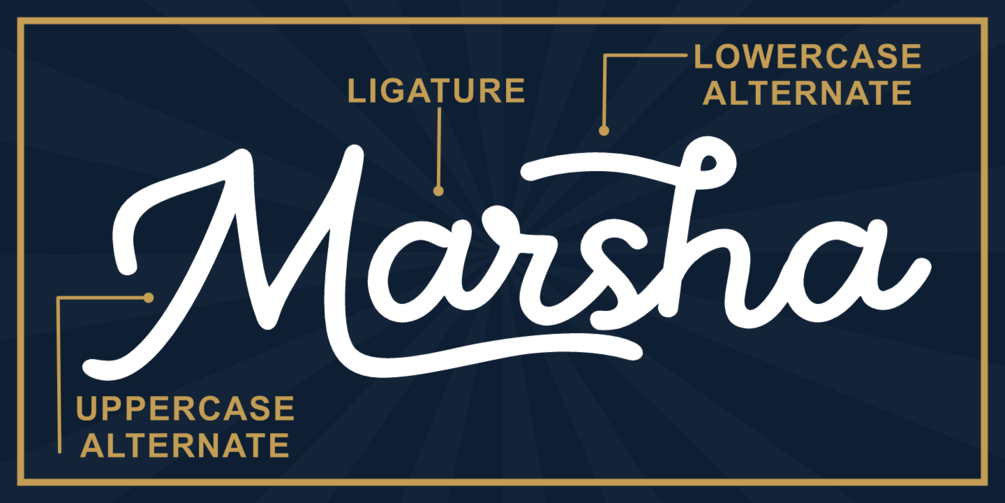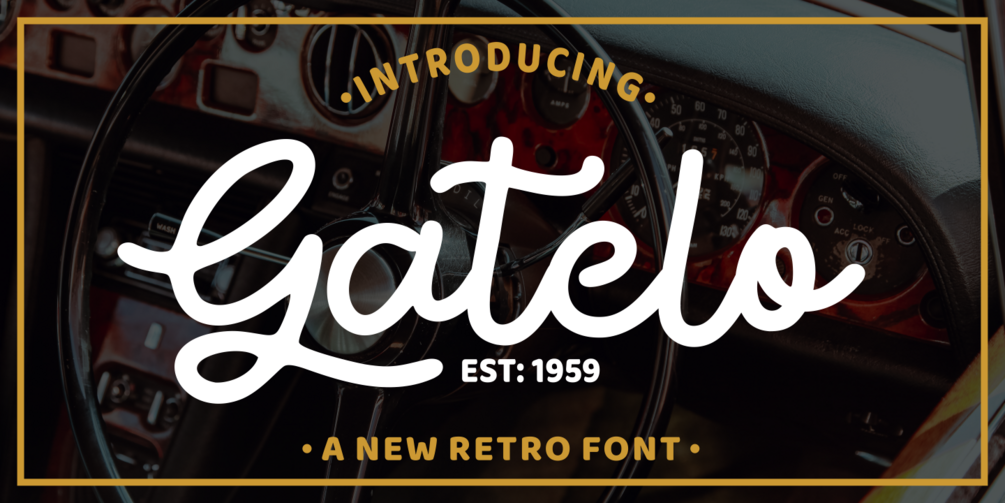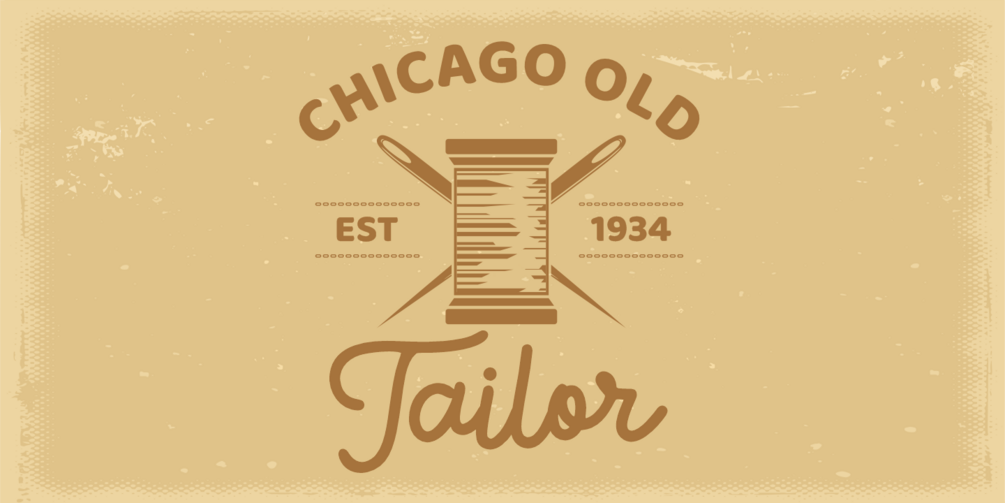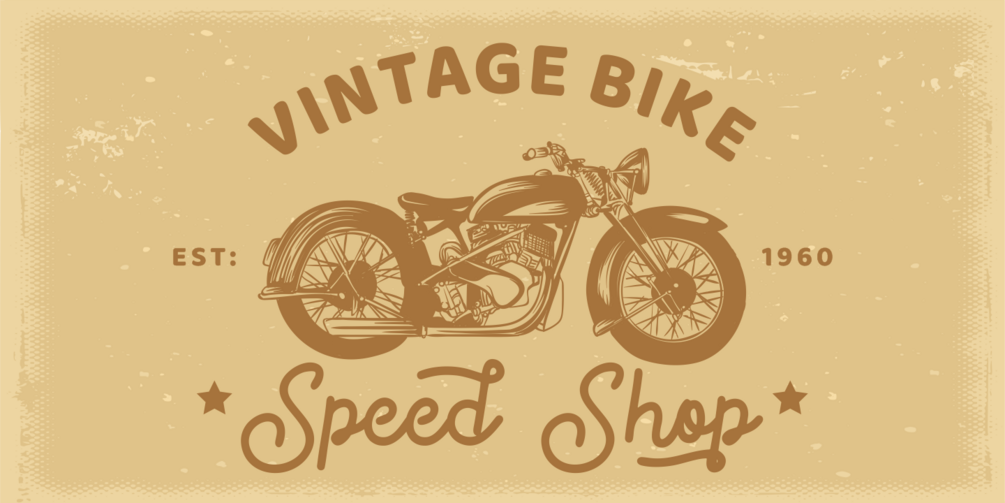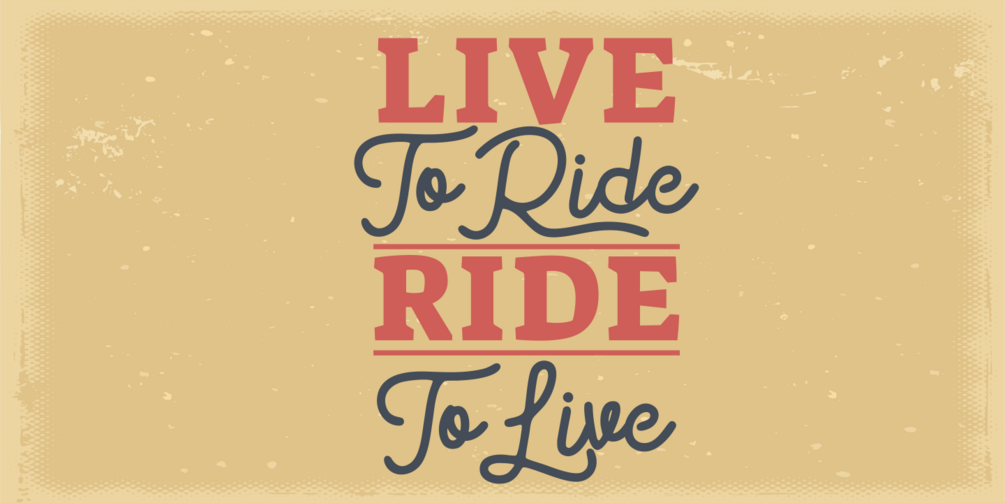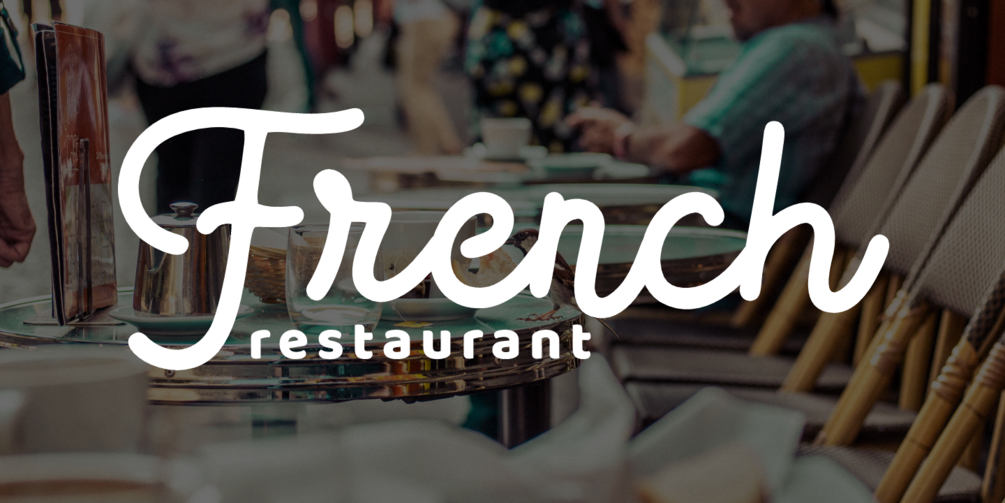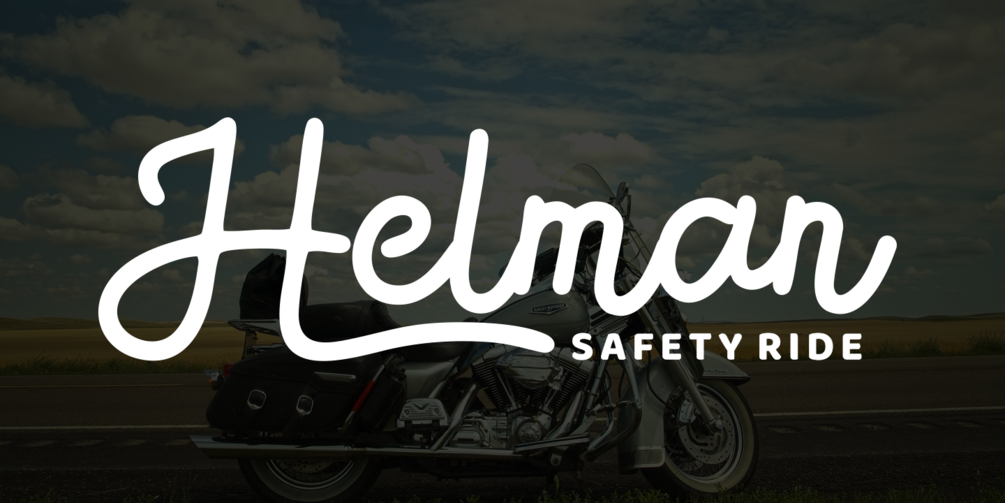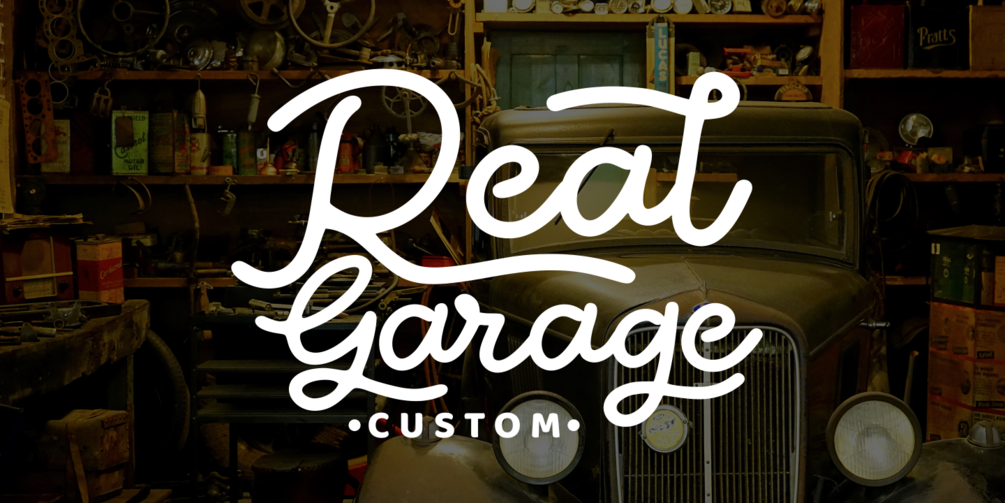
Gatelo
Gatelo is inspired by retro aesthetics combined with a hand-lettering touch. Each letter has been carefully crafted to bring beauty and personality to your text. Perfect for adding a stylish, nostalgic feel to your designs, Gatelo is here to spark inspiration in your creative projects.
• Stylistic Alternate Characters